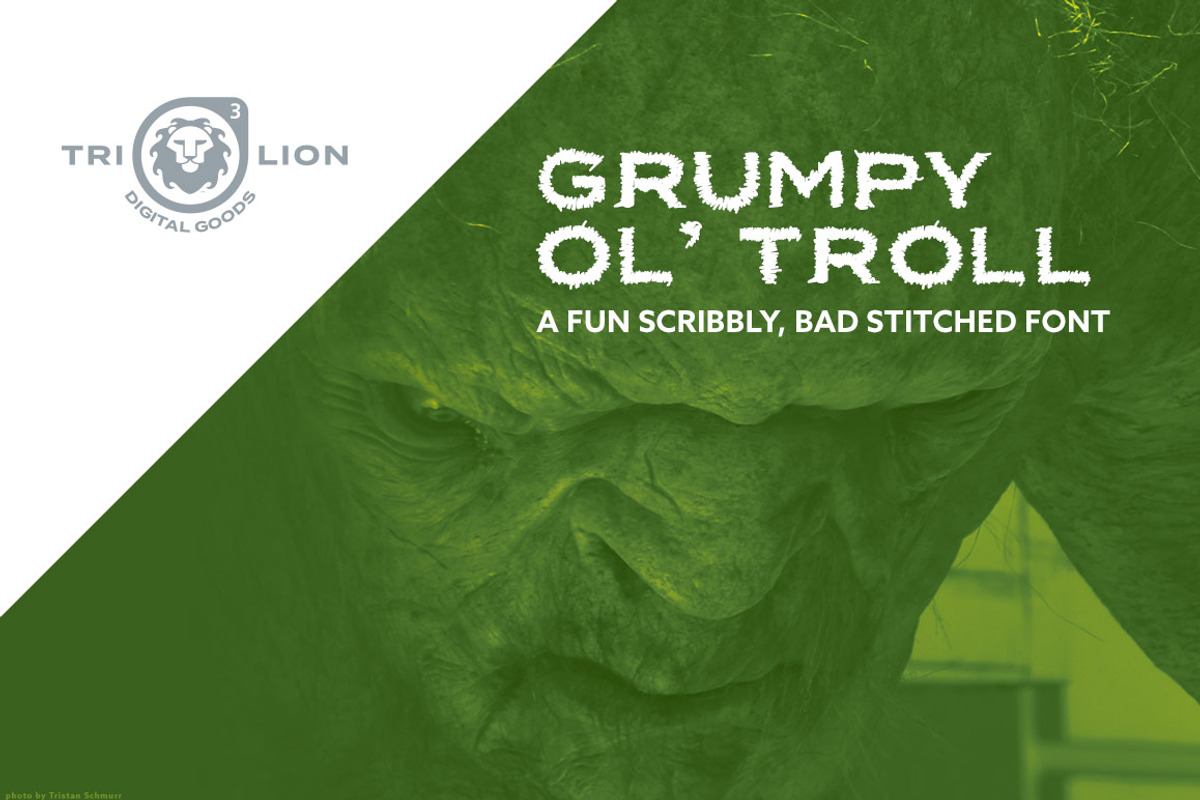
Grumpy Ol' Troll - Stitched Font Free Download is a quirky and fun typeface with a unique stitched effect that adds charm and playfulness to your designs. Perfect for kids' projects, crafts, storybooks, DIY-themed graphics, and whimsical branding, this font brings a handmade, textured feel that’s both friendly and eye-catching.
Using the Grumpy Ol' Troll - Stitched Font Free Download allows you to create designs that feel warm, imaginative, and full of personality. Its uneven lines and sewn-like details give it a cozy, crafty appearance that stands out in both digital and printed work. Whether you're designing greeting cards, posters, or product packaging, this font adds a delightful twist to your typography.